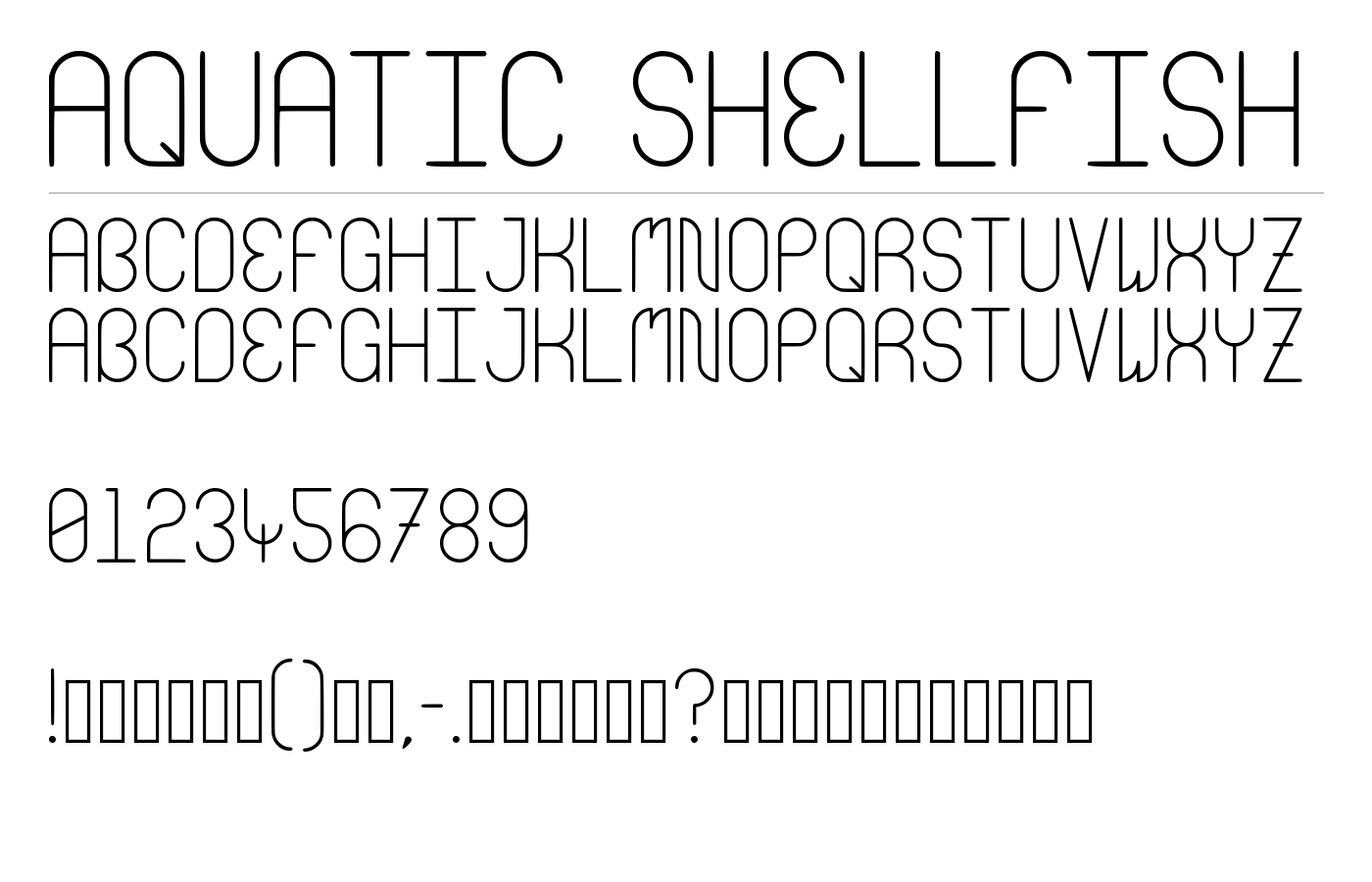
Aquatic Shellfish is a thin, tall sans serif font with a modern, minimalist feel. Its clean lines and narrow letterforms create an airy, elegant look that works well for contemporary branding, headlines, and creative projects aiming for a sleek, sophisticated style. This font suits designs that want to convey freshness and clarity with a subtle touch of uniqueness.
Aquatic Shellfish Font
About Aquatic Shellfish Font